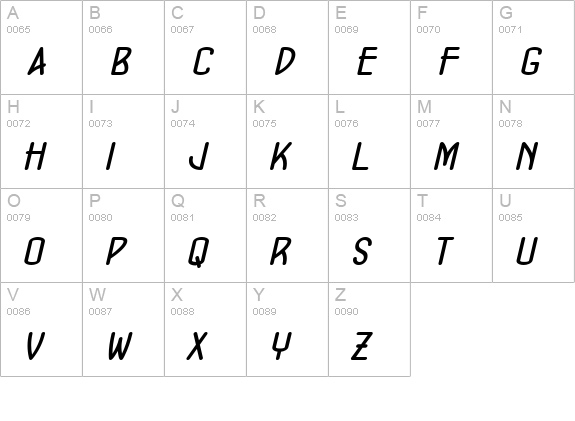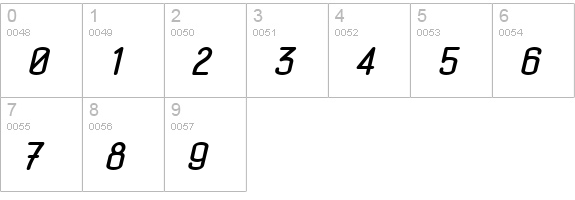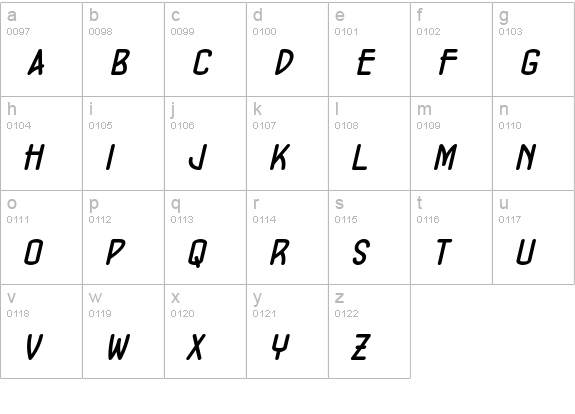
ConcursoModerne BTN BoldOblique Font Details
ConcursoModerne BTN BoldOblique font is a striking and modern typeface that exudes sophistication and elegance. Its bold and oblique design adds a touch of flair to any project, making it perfect for titles, headings, and branding materials. The unique letterforms of ConcursoModerne BTN BoldOblique font make it stand out from the crowd, while maintaining a sense of professionalism and style. The best part? ConcursoModerne BTN BoldOblique font is available for free download at FontsMarket.com. Whether you're a designer looking to add a contemporary edge to your work or a business owner in need of a fresh look for your marketing materials, this font is sure to impress. Don't miss out on the opportunity to elevate your designs with ConcursoModerne BTN BoldOblique font - download it today for free and take your projects to the next level.